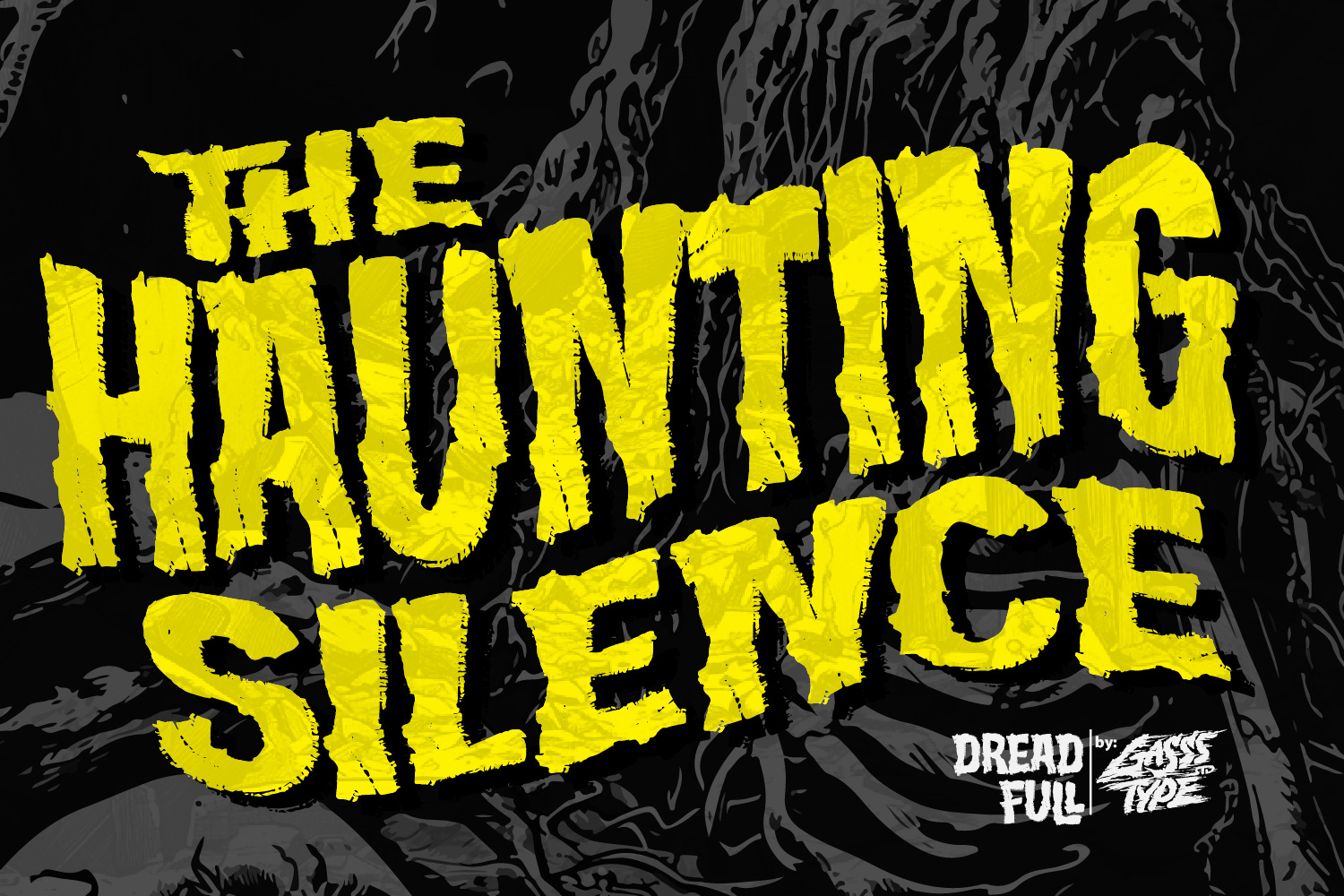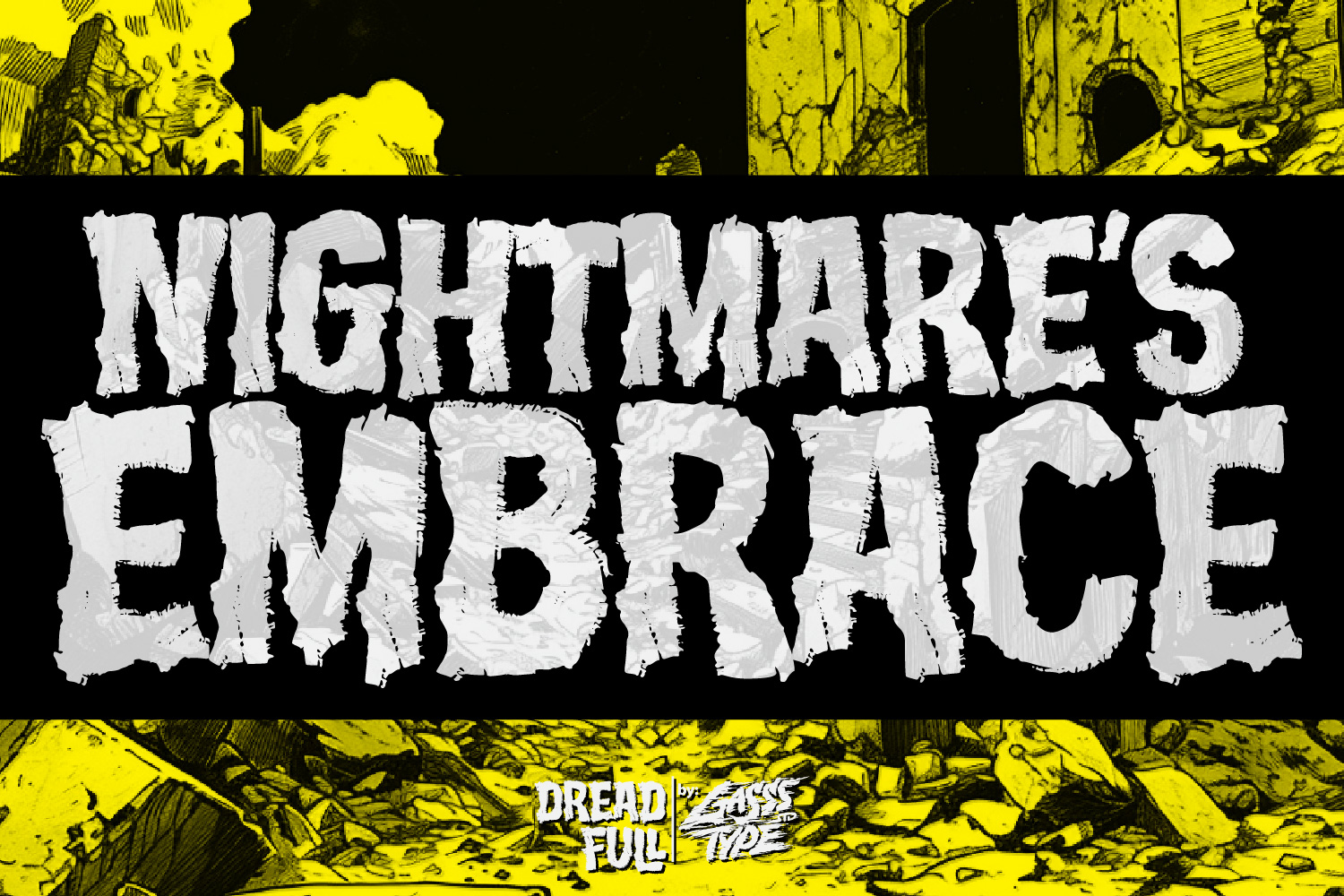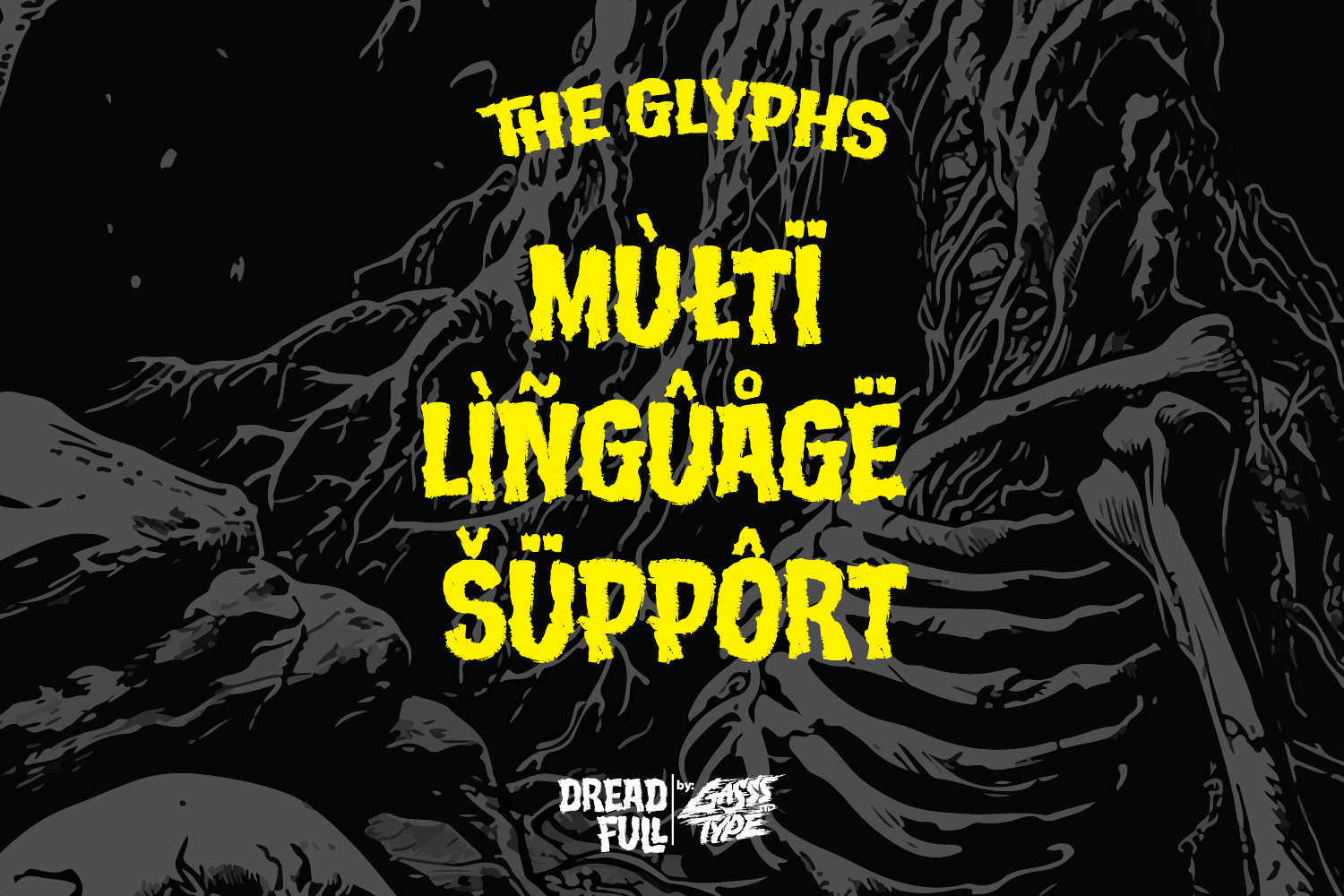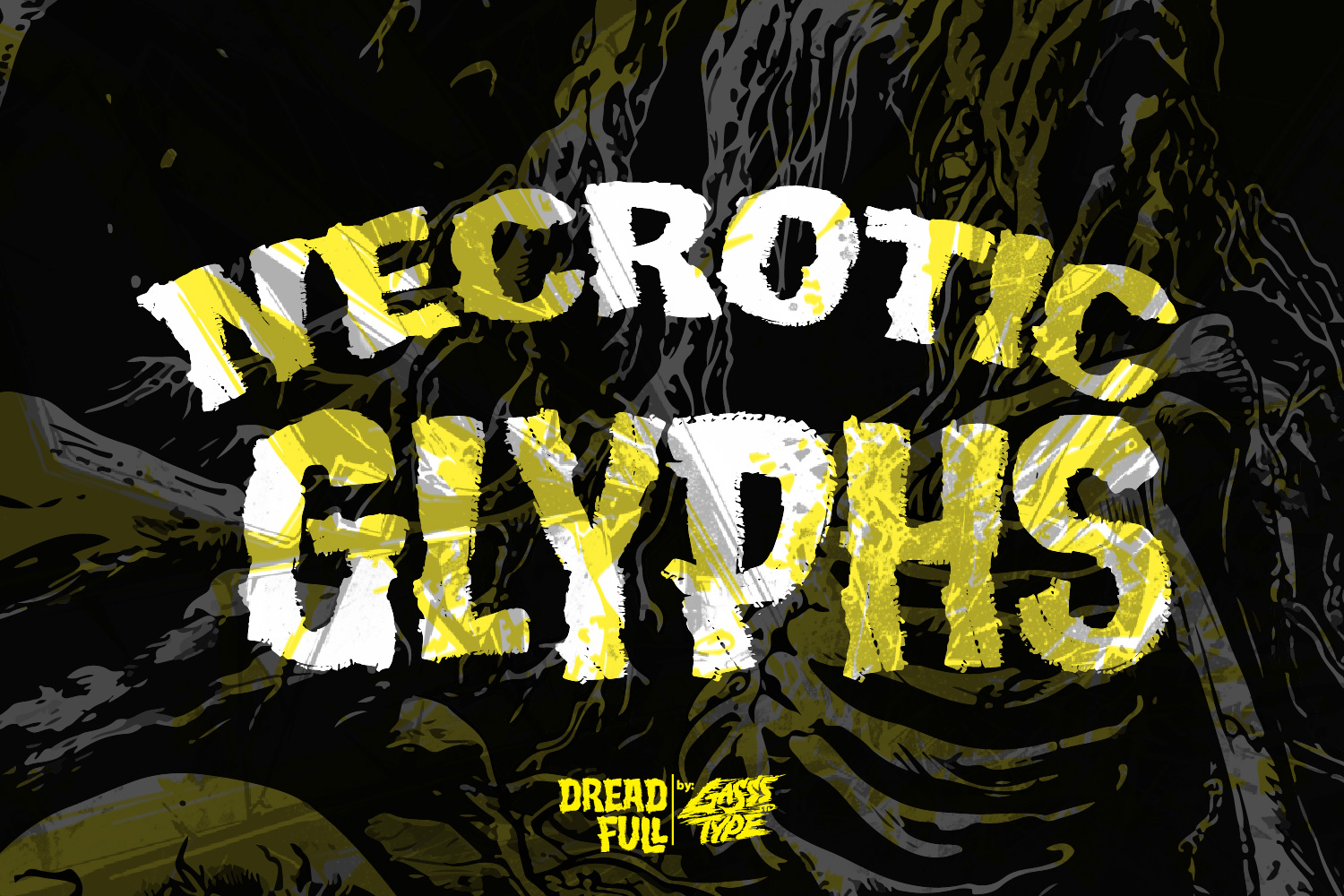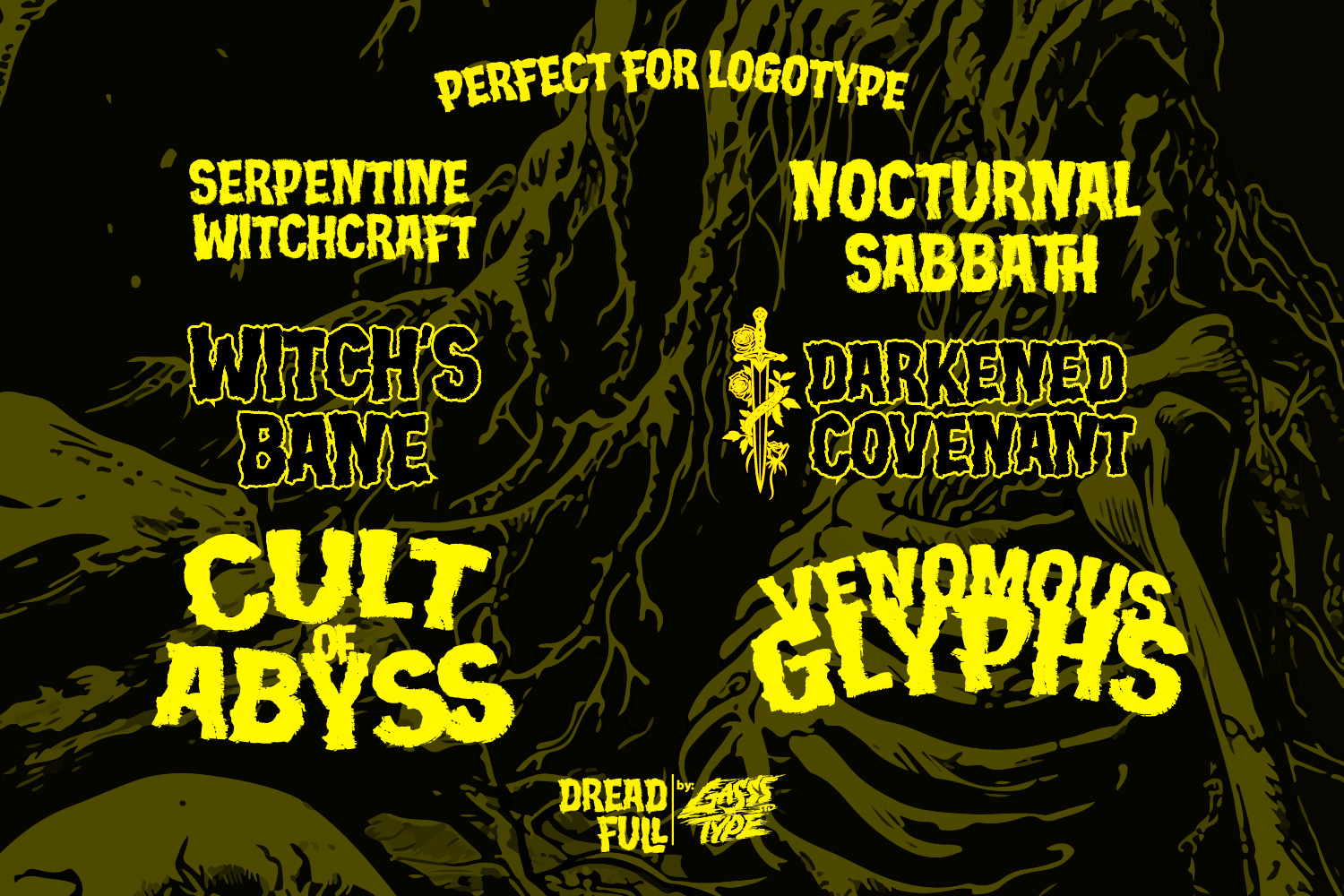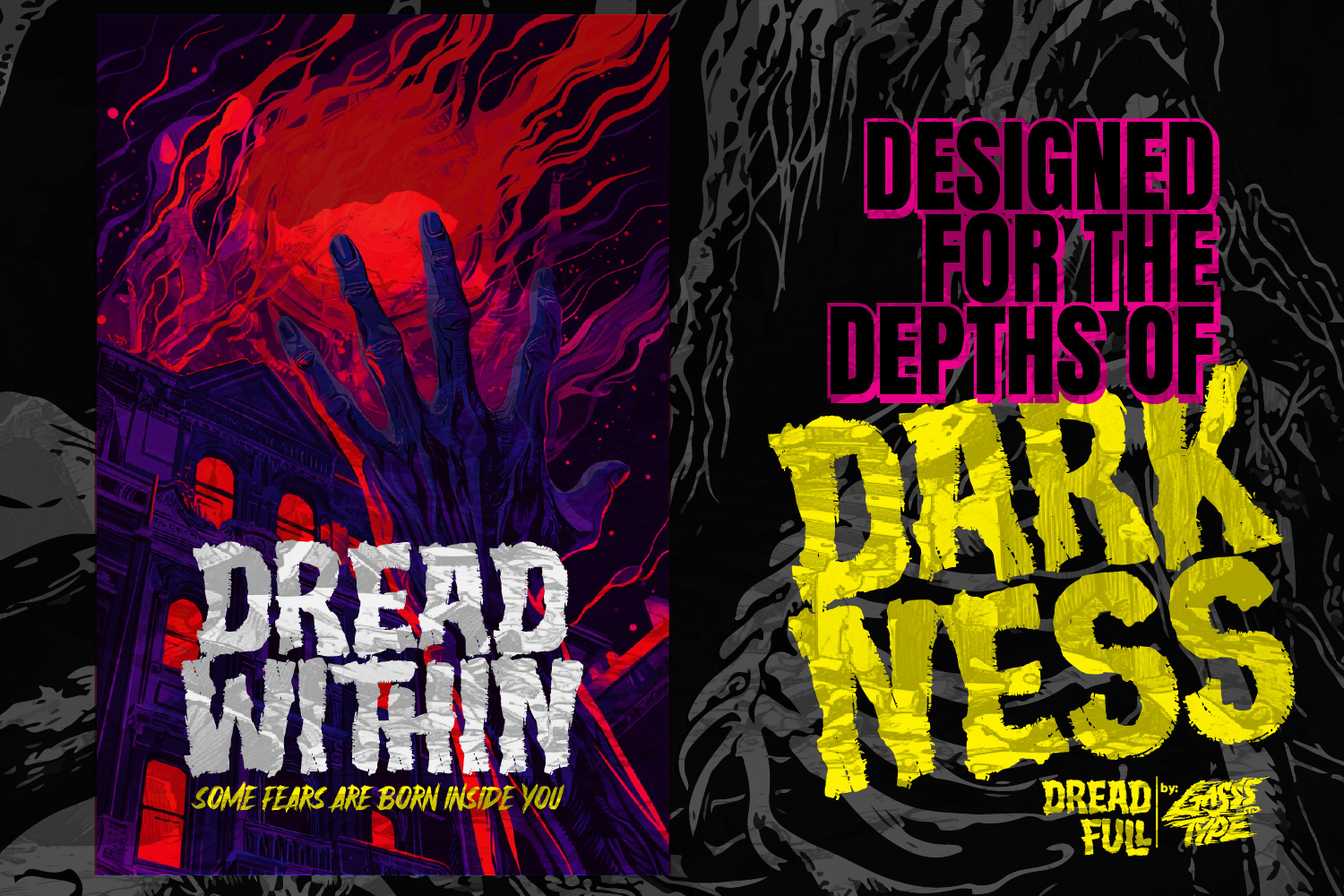
Dreadfull – Horror Retro Font for Eerie, Vintage Designs
Perfect for creating spine-chilling posters, vintage horror movie titles, and retro-themed graphic designs, Dreadfull is a horror retro font that captures the essence of classic fear with a nostalgic twist. With its bold, distressed lettering and old-school horror vibe, Dreadfull brings a hauntingly memorable quality to your projects, making it ideal for designs that need a touch of retro dread and drama.
Whether you’re designing for horror-themed events, vintage book covers, or classic horror film promotions, Dreadfull’s eerie and vintage style ensures that your work stands out with a powerful and atmospheric presence.
- Standard Glyphs: Includes a comprehensive set of characters.
- Multilingual Support: Designed to accommodate multiple languages.